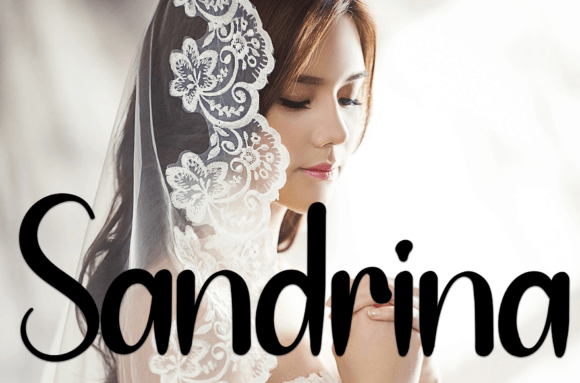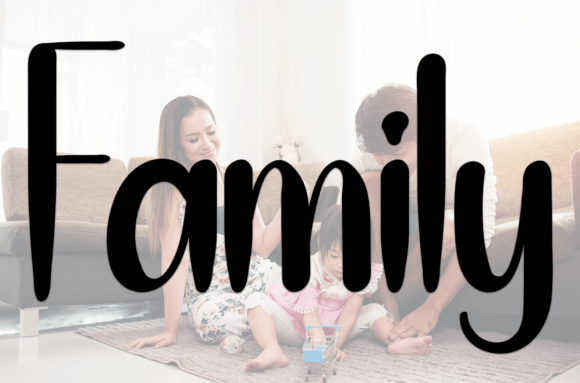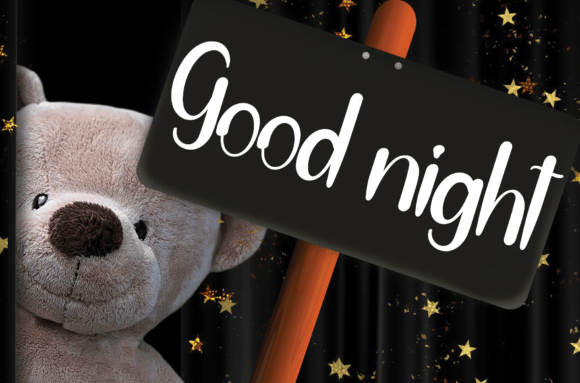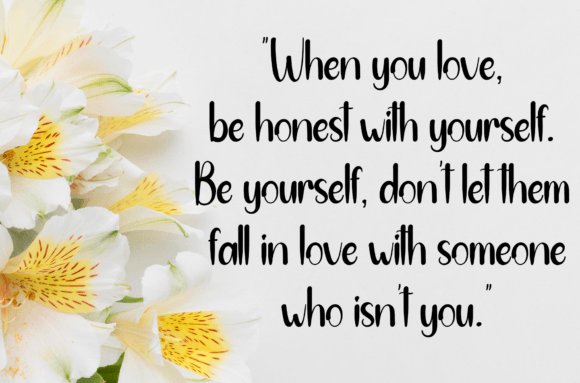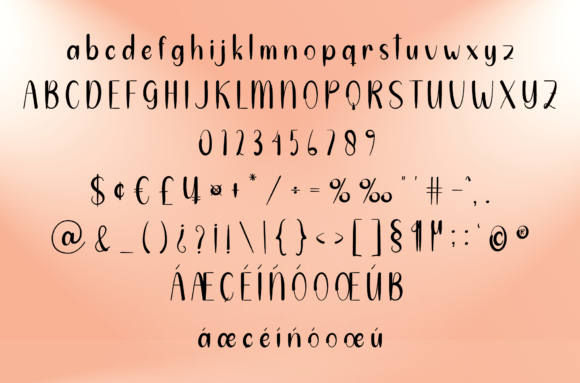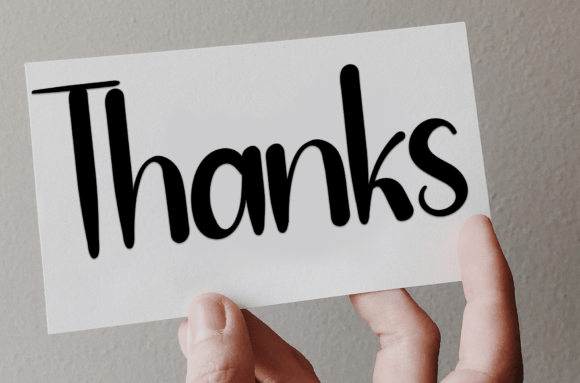
Introducing Handmade Font: The Sweet and Friendly Handwritten Font for Your Designs
Are you a designer or crafter looking for a font that can add a personal touch to your creations? Look no further than Handmade Font, a sweet and friendly handwritten font that’s perfect for a variety of design projects. In this article, we’ll explore the features and benefits of Handmade Font, and show you how it can elevate your designs to the next level.
What is Handmade Font?
Handmade Font is a beautiful, handwritten font that’s designed to bring a touch of warmth and personality to your designs. With its cute and fun style, this font is ideal for writing wedding invitations, cards, or any other design that might need a fun touch. Whether you’re creating a DIY project, a wedding stationery, or a social media graphic, Handmade Font is the perfect choice.
Key Features of Handmade Font
- Cute and Fun Style: Handmade Font has a playful and charming style that’s sure to capture the attention of your audience.
- Handwritten with Love: This font is carefully crafted to mimic the look and feel of handwritten text, giving your designs a personal and human touch.
- Perfect for Wedding and DIY Projects: Handmade Font is ideal for wedding invitations, cards, and other DIY projects that require a personal and creative touch.
- Easily Readable: Despite its playful style, Handmade Font is easily readable, making it perfect for body text and captions.
Benefits of Using Handmade Font
So, why should you choose Handmade Font for your designs? Here are just a few benefits of using this beautiful font:
- Adds a Personal Touch: Handmade Font gives your designs a personal and human touch, making them more relatable and engaging.
- Perfect for Branding and Marketing: With its unique and playful style, Handmade Font can help you stand out from the crowd and establish a strong brand identity.
- Versatile: This font can be used for a wide range of design projects, from wedding invitations to social media graphics.
How to Use Handmade Font in Your Designs
Using Handmade Font in your designs is easy. Here are a few tips to get you started:
- Pair it with Other Fonts: Handmade Font looks great when paired with other fonts, such as serif or sans-serif fonts.
- Use it for Headings and Titles: Handmade Font is perfect for headings and titles, where its playful style can really shine.
- Add it to Your Wedding Stationery: Handmade Font is a popular choice for wedding stationery, including invitations, save-the-date cards, and thank-you notes.
- Experiment with Colors and Textures: Handmade Font looks great in a variety of colors and textures, so don’t be afraid to experiment and find the perfect combination for your design.
In conclusion, Handmade Font is a beautiful and versatile handwritten font that’s perfect for designers and crafters looking to add a personal touch to their creations. With its cute and fun style, easily readable text, and wide range of uses, Handmade Font is an excellent choice for any design project. So why not give it a try and see how it can elevate your designs to the next level?
Whether you’re creating a wedding invitation, a DIY project, or a social media graphic, Handmade Font is the perfect choice. So go ahead, get creative, and make your designs truly special with Handmade Font.